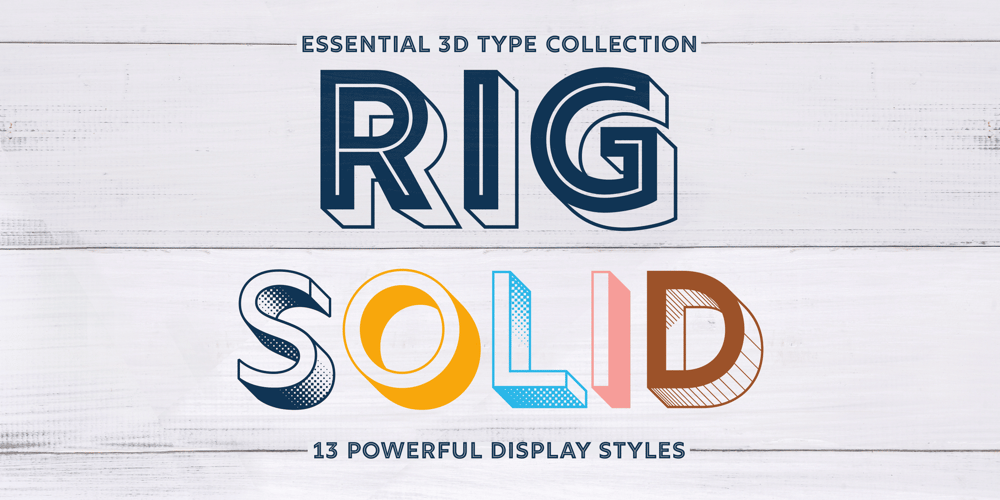
Rig Solid Font Family was designed by Jamie Clarke and published by Jamie Clarke Type. Rig Solid contains 13 styles and family package options. Rig Solid extends your typography toolkit with a range of energetic 3D fonts. Add dynamism to headlines and logos 13 styles across four weights Solid and gradient 3D designs Clean ‘unbreakable’ geometric shapes Rig Solid follows the award-winning design of its big brother, Rig Shaded. Each style can be used individually, making it even easy to achieve eye-catching 3D effects in print and on the web.The striking halftone styles add texture to your typography, while the hardy solid styles give your designs a visual punch and remain prominent when used over photography and patterned backgrounds.The family includes the unshaded style, ‘Bold Solo’, to perfectly compliment the shaded styles or be used on its own.Rig Solid does not require professional design software to use and is compatible with Microsoft Word.